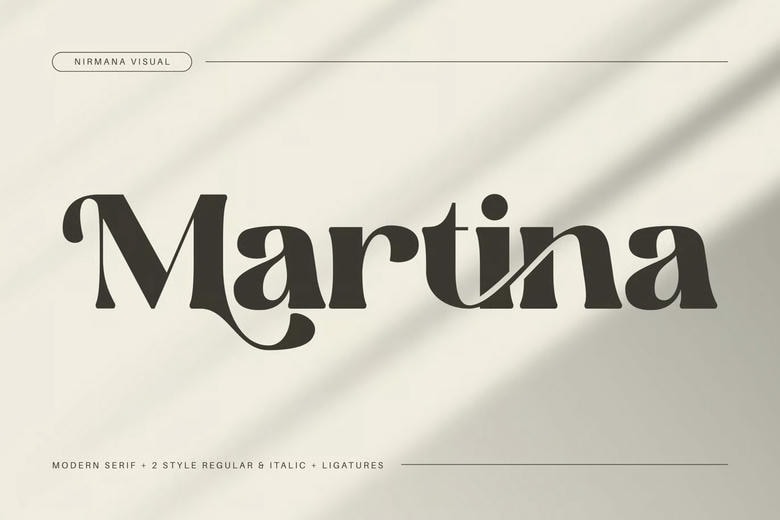
Martina Retro Font
Martina Retro – Branding Logo Font offers beautiful typographic harmony for a diversity of design projects, including logos & branding, social media posts, advertisements & product designs.
Martina Retro Branding Logo Font